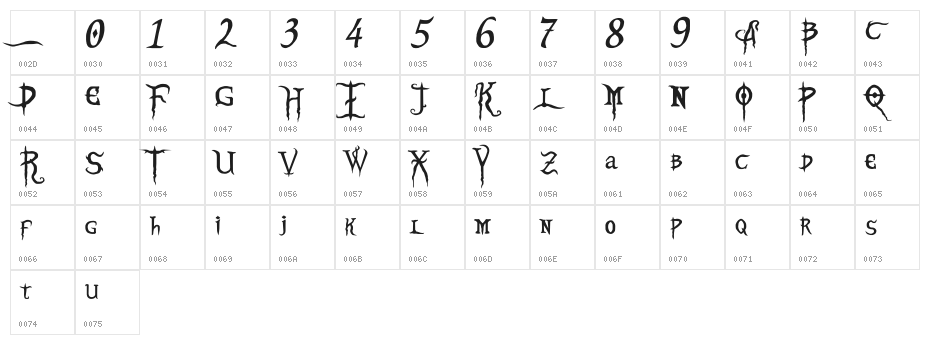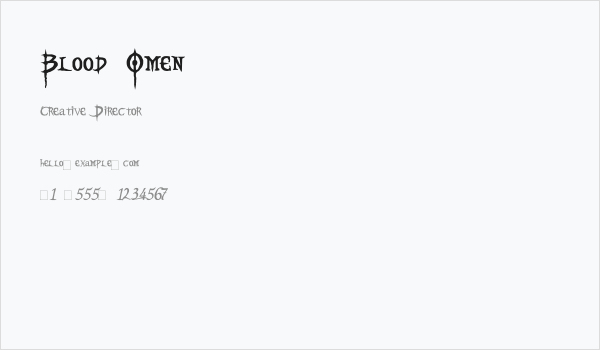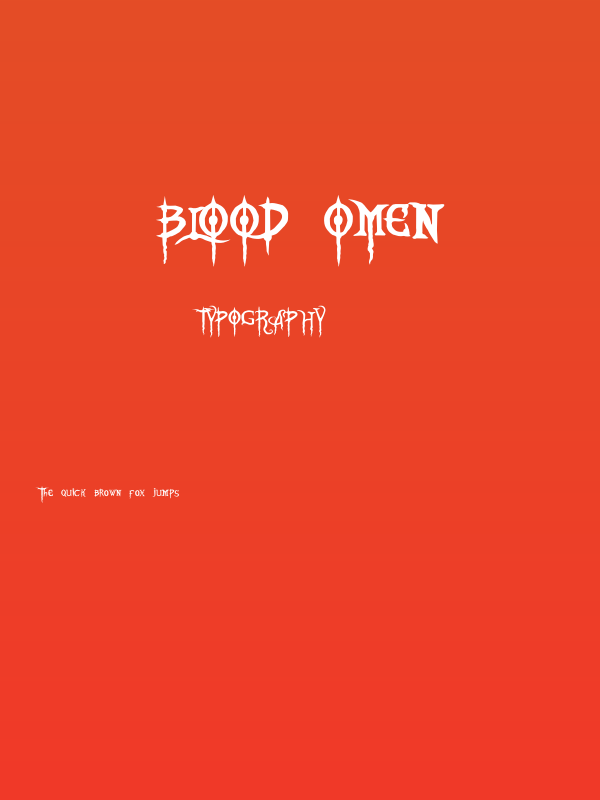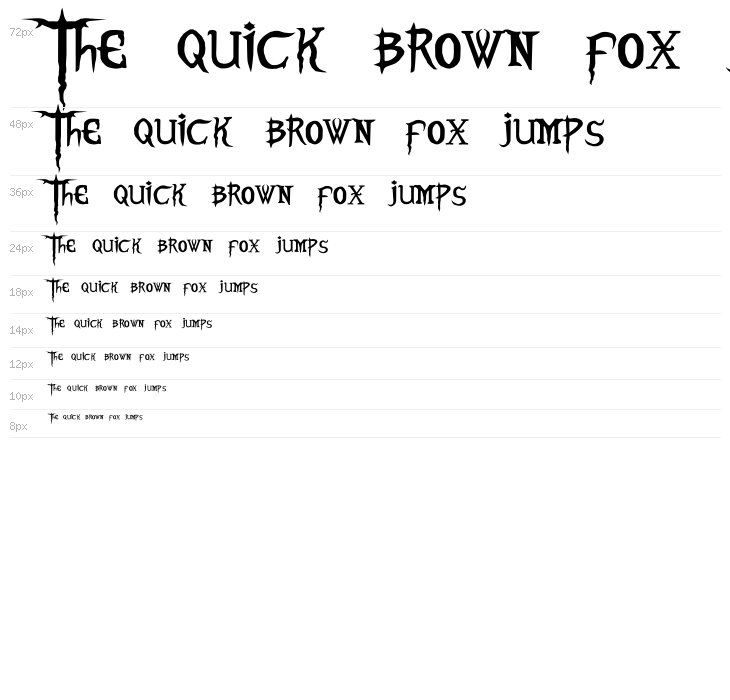
Blood Omen Font
Blood Omen Description
This font features a bold and dramatic style, characterized by sharp, angular lines and a gothic aesthetic. The characters are designed with a high level of detail, incorporating intricate elements that give it a distinctive and somewhat ominous appearance. The uppercase letters are particularly striking, with elongated serifs and pointed edges that convey a sense of intensity and power. The lowercase letters maintain the same stylistic elements, ensuring consistency throughout the typeface. The numerals and special characters are equally well-crafted, making this font suitable for a variety of creative applications.
A bold, gothic-style font with sharp, angular lines and intricate details from Decorative fonts.
- Proposed Projects: Ideal for use in horror-themed designs, video game titles, movie posters, and any project requiring a dramatic and intense visual impact.
- Overall Style: Gothic, Dramatic